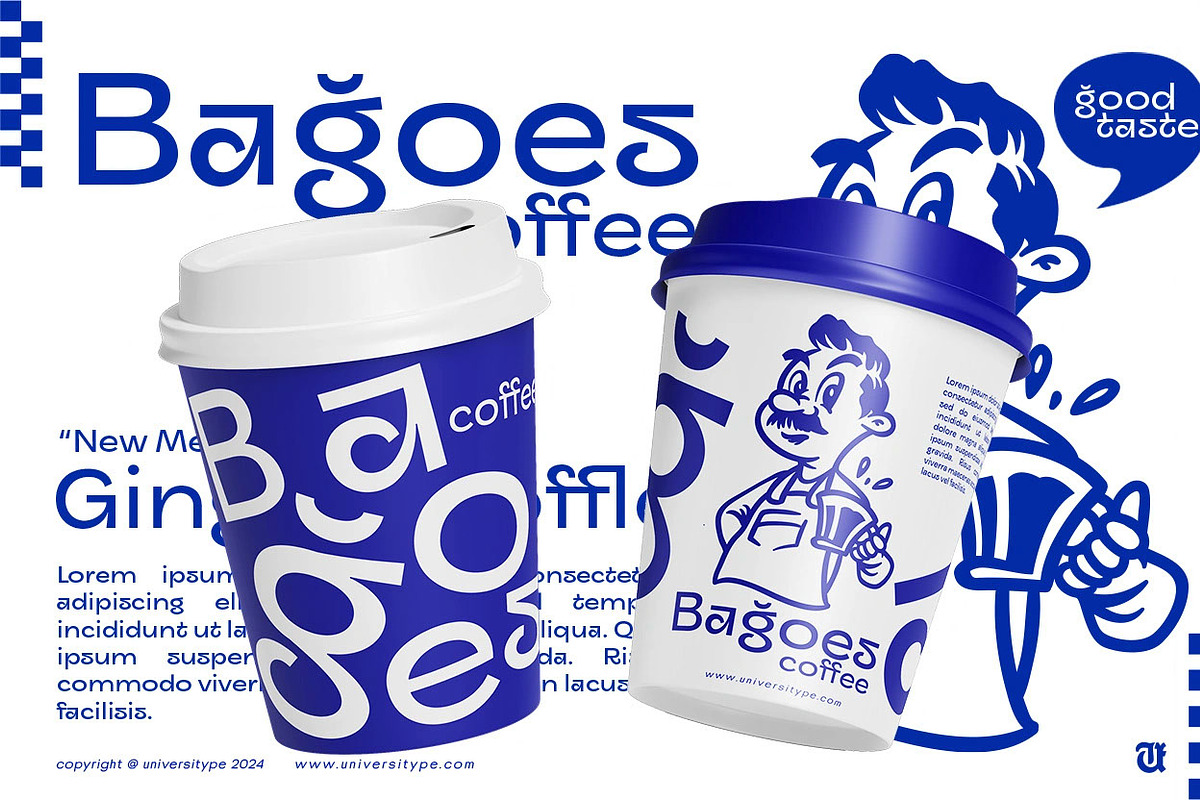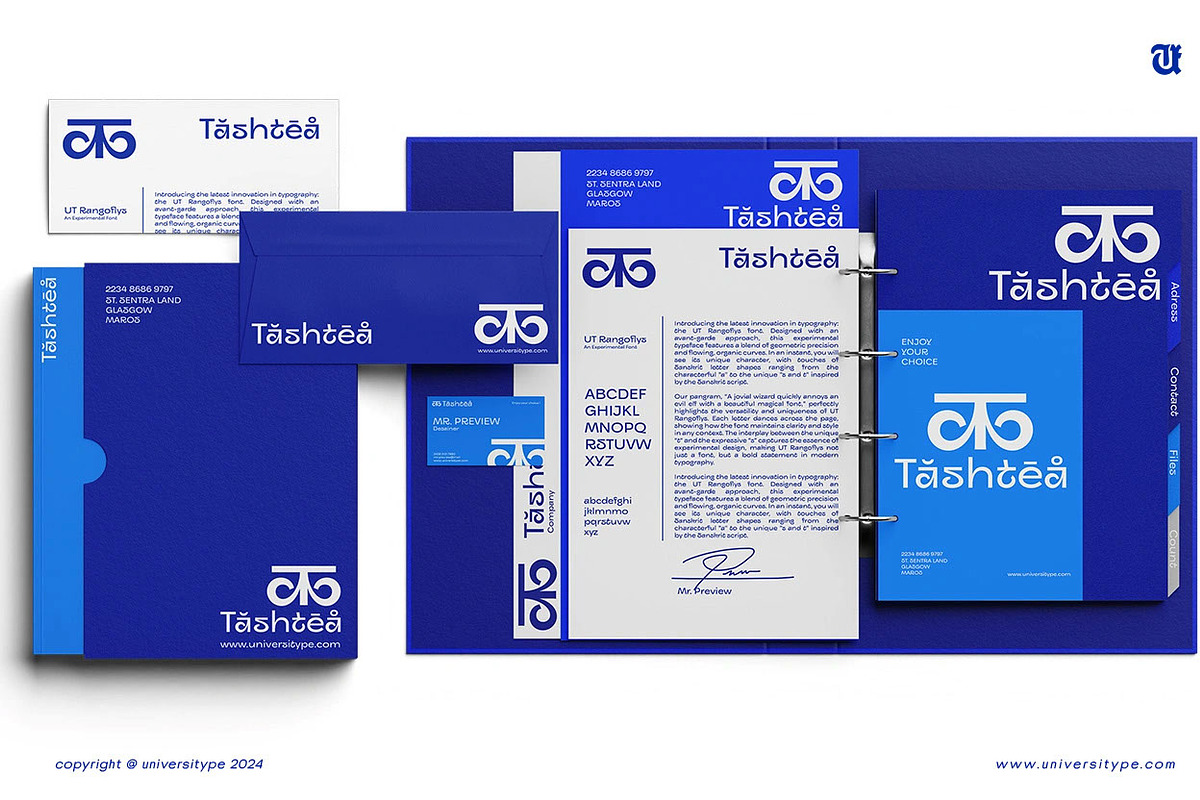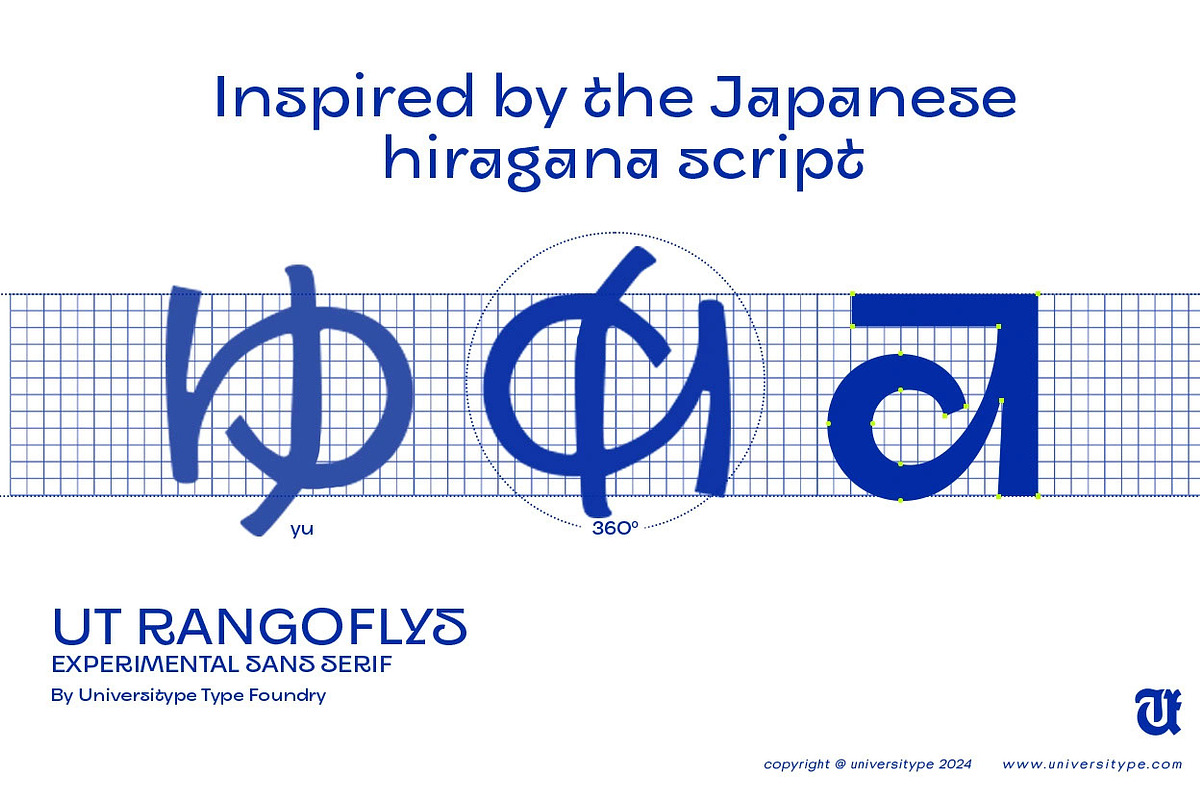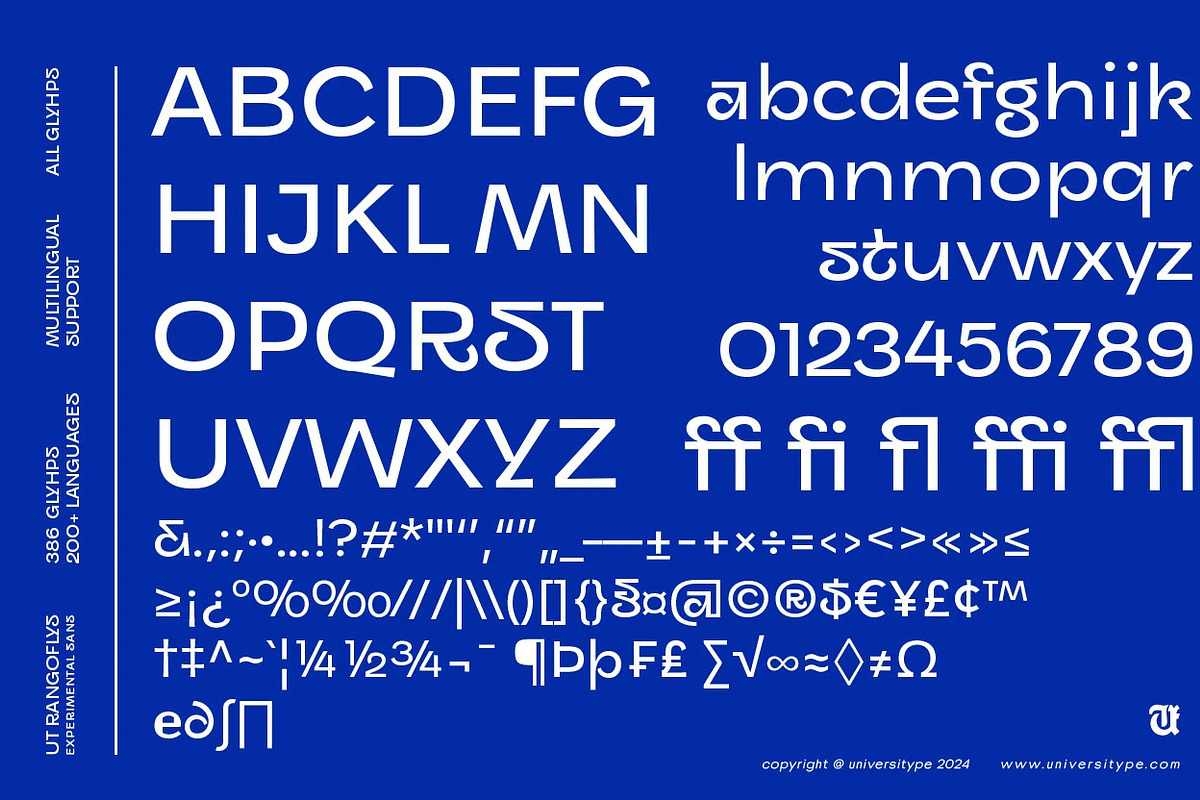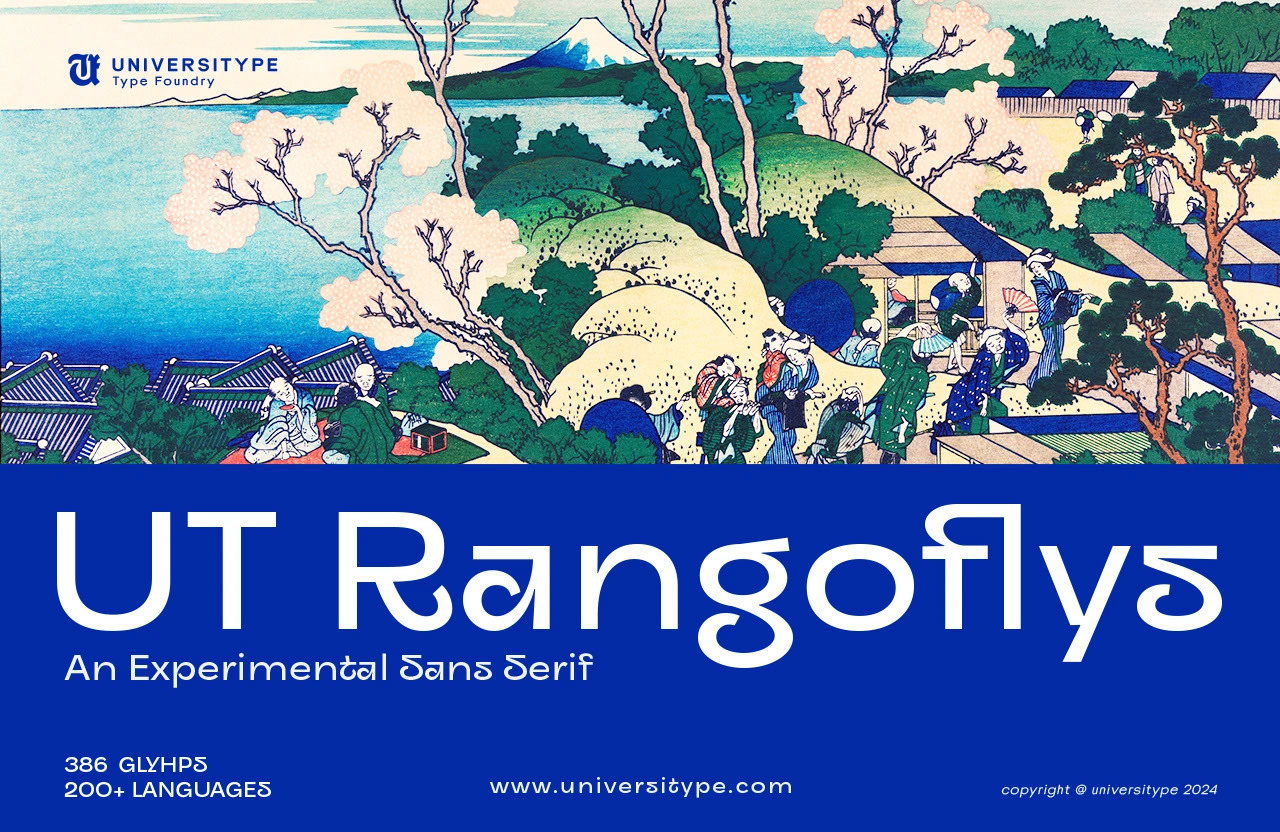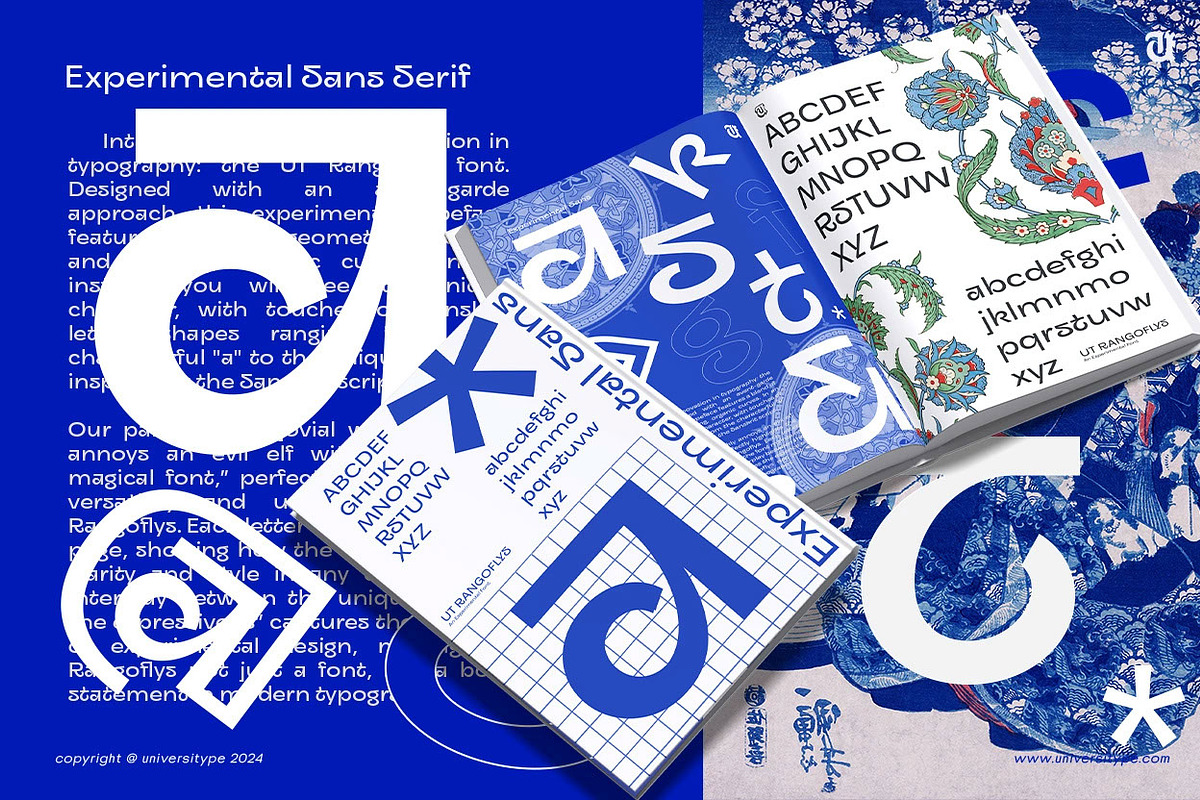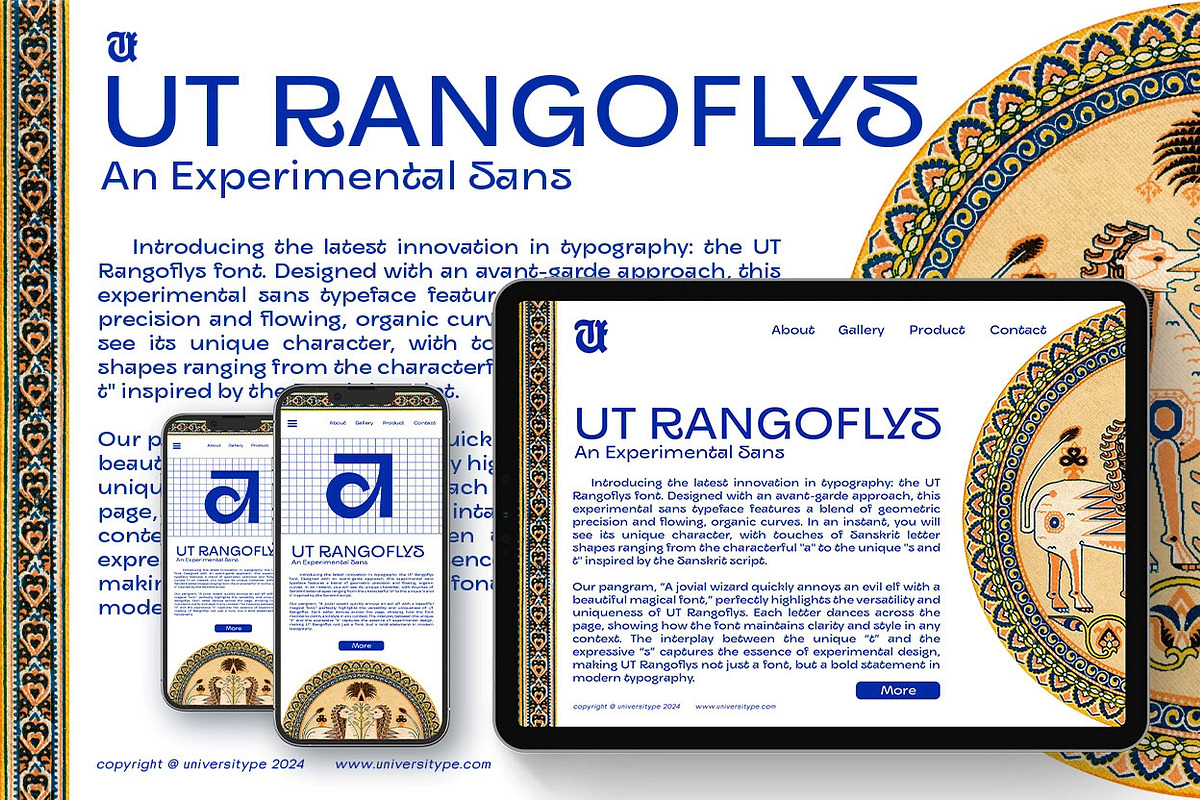
UT Rangoflys - An Experimental Font
Explore the artistic fusion of East and West with UT Rangoflys, an experimental sans serif font inspired by the graceful forms of the Japanese Hiragana script. This innovative typeface combines the fluidity of traditional calligraphy with modern, avant-garde design, offering a unique and versatile typographic experience.
UT Rangoflys features 386 meticulously crafted glyphs, supporting over 200 languages, making it an ideal choice for global creatives. The font’s design captures the essence of Hiragana’s soft curves and smooth transitions while integrating contemporary elements, resulting in a typeface that is both expressive and functional.
Perfect for digital interfaces, branding, and print, UT Rangoflys adds a touch of elegance and creativity to any project. Whether you’re looking to make a bold statement or add subtle sophistication, this font delivers a fresh perspective on modern typography.
Key Features :
- Uppercase Letters: The uppercase characters have a modern, minimalist look, with slight variations and unique curves that give them an experimental feel.
- Lowercase Letters: The lowercase letters maintain a more rounded and approachable form, yet they still carry an experimental edge.
- Numerals & Punctuation: The numerals are clean and legible, matching the overall modern sans-serif aesthetic. The punctuation includes a mix of standard and creatively designed symbols, suitable for various design contexts.
- Special Characters: The font includes a range of accented characters and special symbols, allowing it to be used in multilingual contexts.
- Experimental Glyphs: The font includes uniquely styled characters, such as the stylized “a” and “g,” which incorporate unexpected curves and angles.
- Language Support : Over 200 languages
Inspiration:
UT Rangoflys is inspired by the fluid, rounded forms characteristic of the Japanese Hiragana script. This influence is evident in the font’s soft curves, smooth transitions, and subtle stroke variations, which evoke the calligraphic style of Hiragana while blending it with modern, experimental design elements.